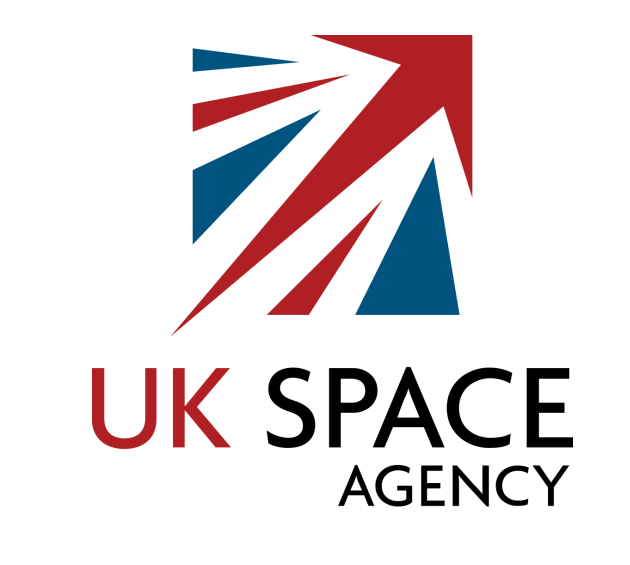
UK Space Agency Font
Fonts in UseUK Space Agency (UKSA) is a government agency responsible for the UK's civil space program and leads the UK's efforts to explore and benefit from space. It was established in 2010 and is headquartered in Swindon, England.
The UKSA logo features Agenda Medium, a narrow-stroked humanist sans-serif font designed by Greg Thompson. It is based on a 1916 typeface created by Edward Johnston for the London Underground. You can find more details about the font family here.